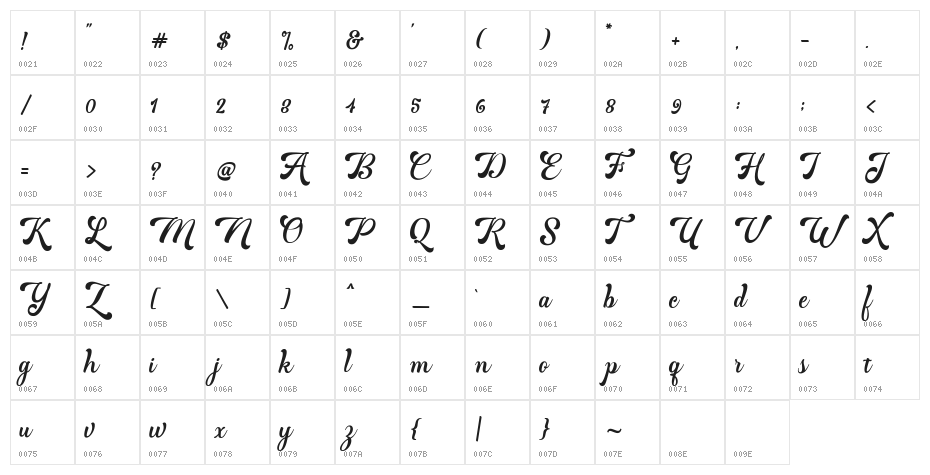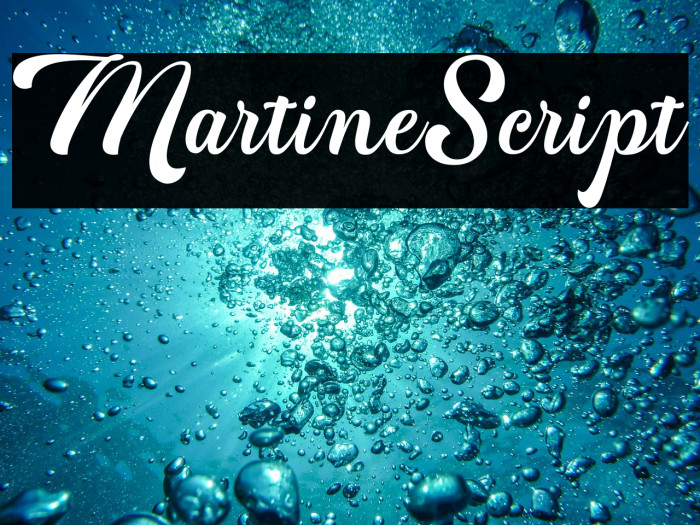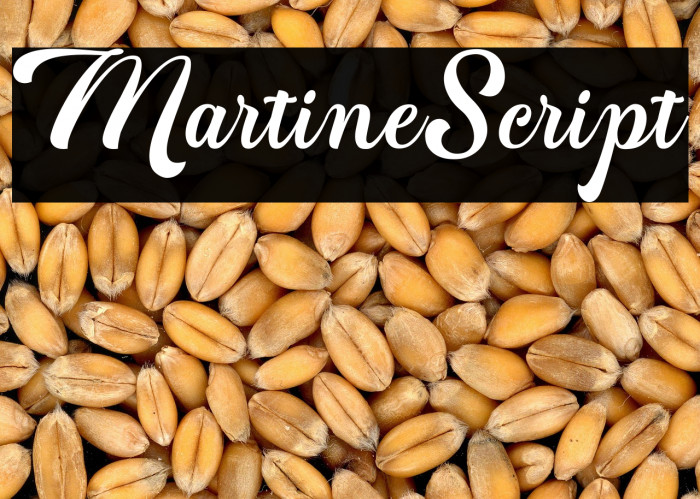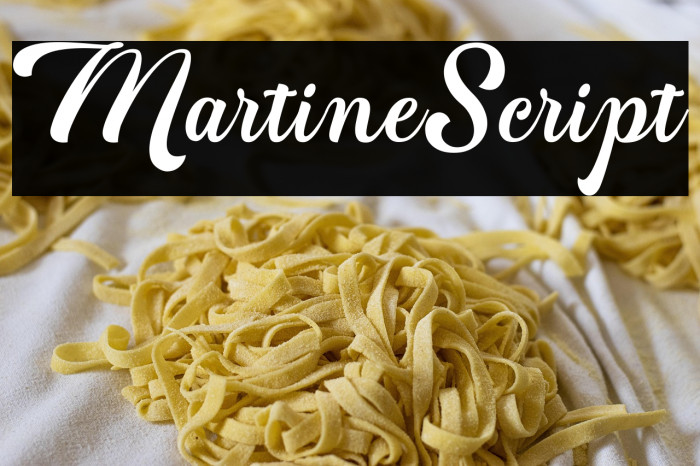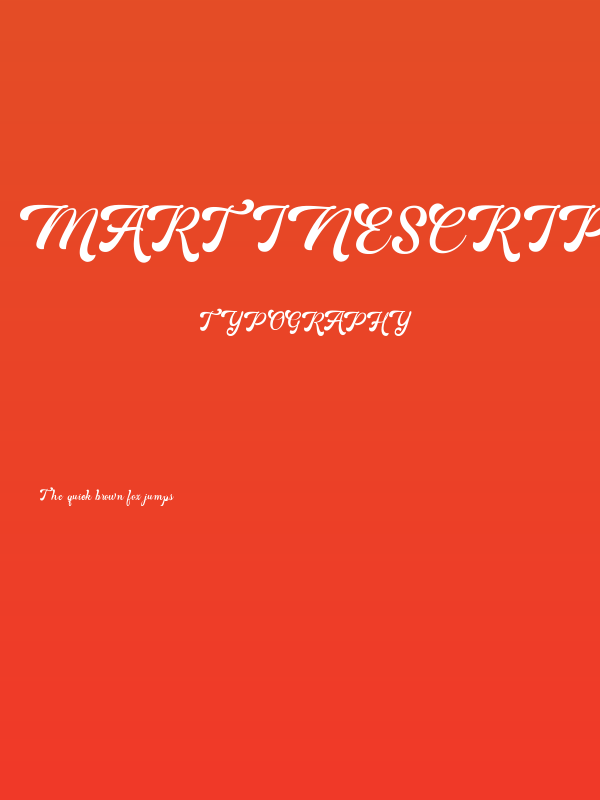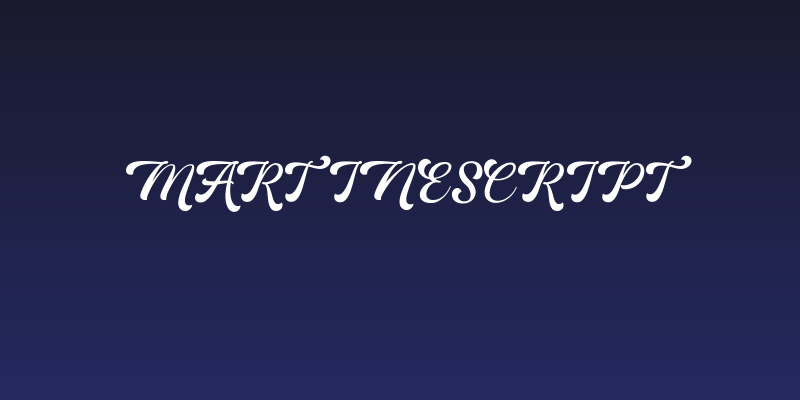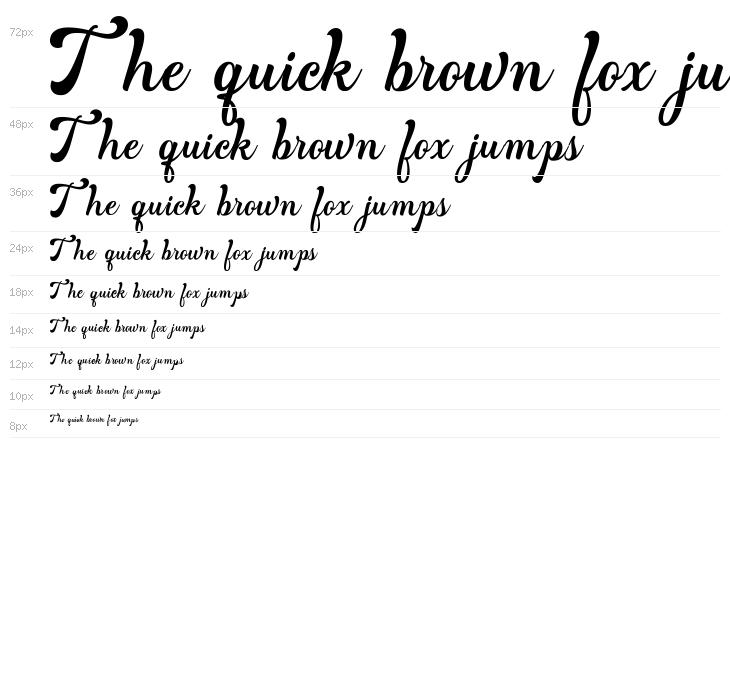
MartineScript Font
MartineScript Description
This elegant script font features flowing, cursive letterforms with a classic and sophisticated appearance. The uppercase letters are ornate and slightly exaggerated, while the lowercase letters maintain a smooth and fluid connection, enhancing readability. The numerals are consistent with the script style, offering a cohesive look across all characters. Special characters are thoughtfully designed to match the overall aesthetic, making this font versatile for various design needs. The strokes are moderately thick, providing a balanced contrast that adds to the font's legibility and charm.